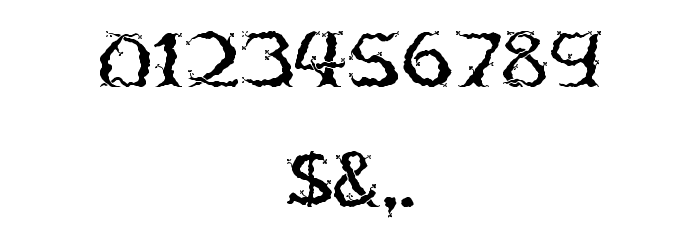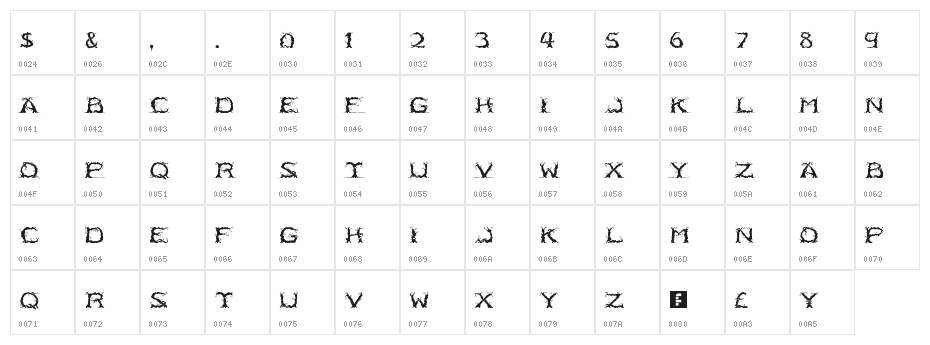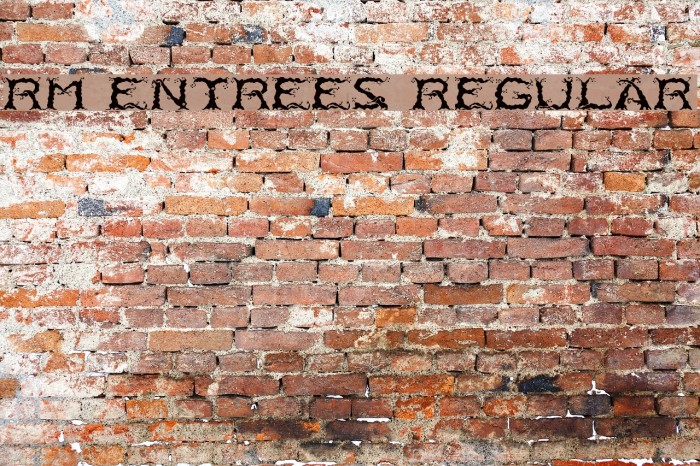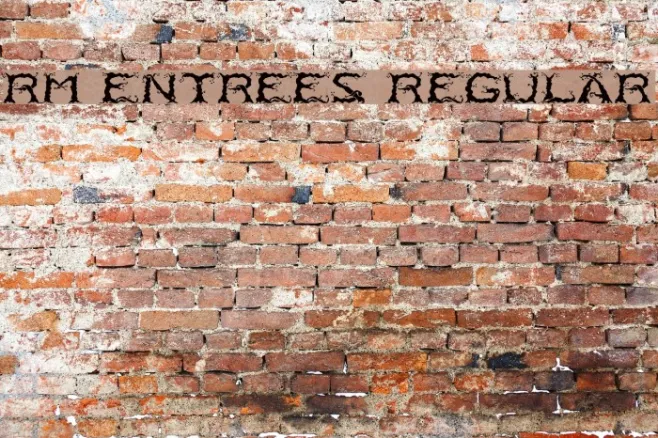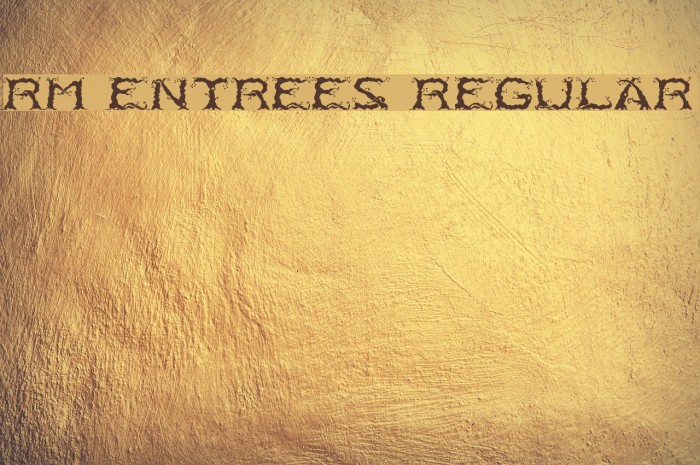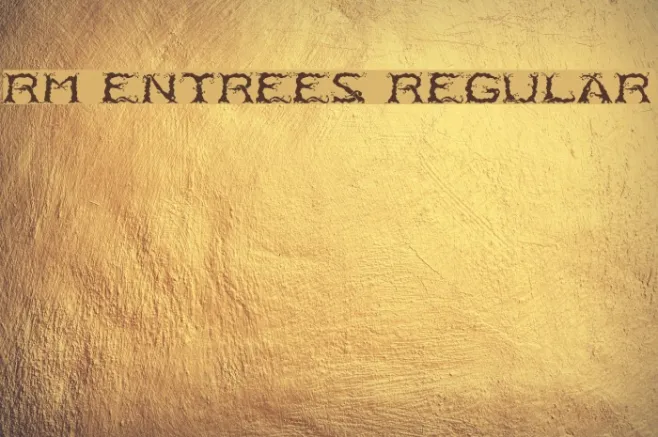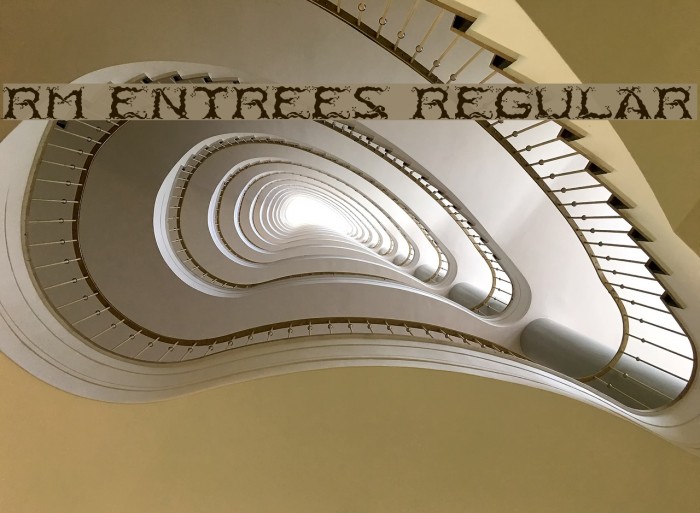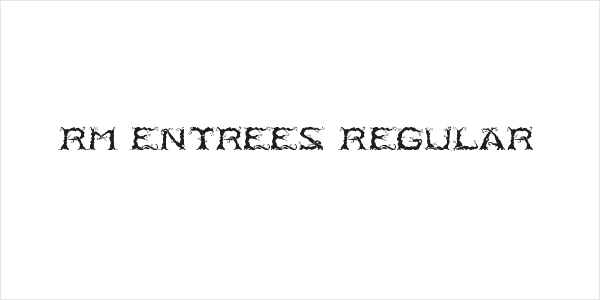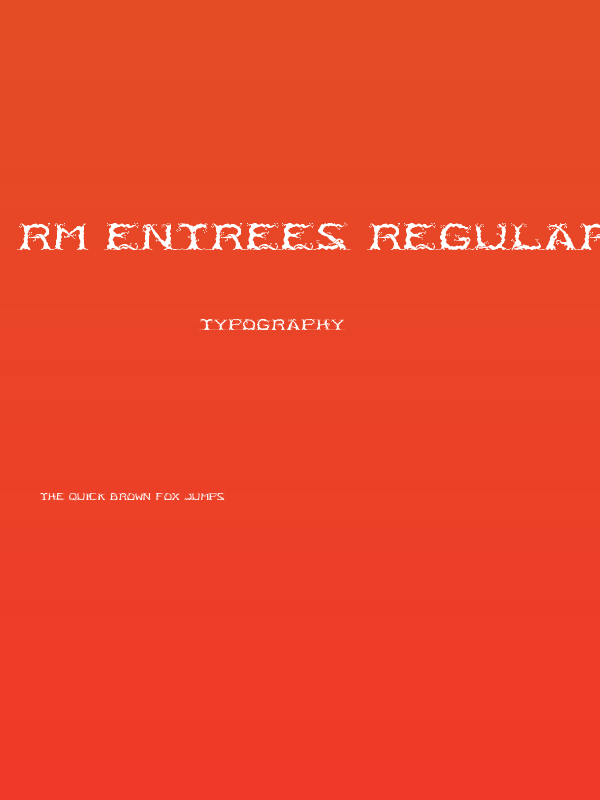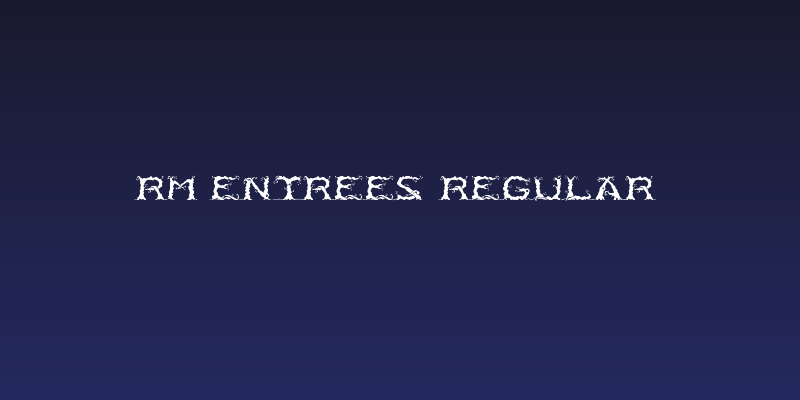
RM Entrees Regular Font
RM Entrees Regular Description
This font features a highly decorative and distressed style, characterized by its rough, textured edges that give it an organic and somewhat chaotic appearance. The letters are bold and have a unique, artistic flair, making them stand out with a sense of rugged elegance. Each character appears to be hand-drawn, with irregularities that add to its charm and individuality. The font maintains a consistent weight throughout, with medium contrast between thick and thin strokes. Its distinctive style is reminiscent of vintage or grunge aesthetics, suitable for projects that require a bold statement or an artistic touch.
| Overall Style | Vintage, Grunge, Artistic |
| Proposed Projects | Ideal for album covers, posters, branding for edgy or artistic businesses, and any design needing a bold, artistic statement. |